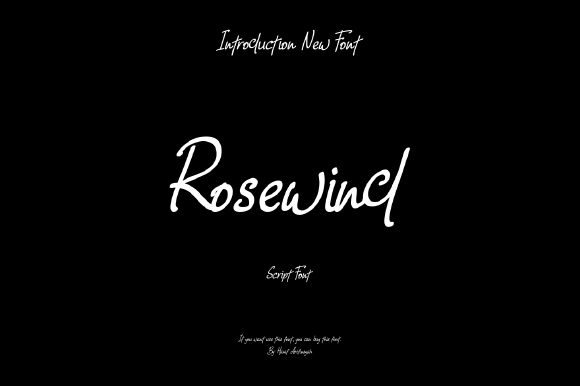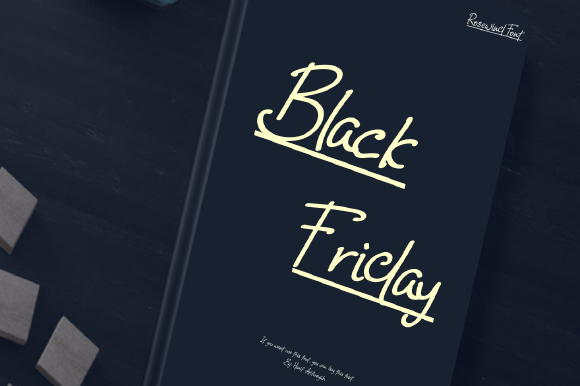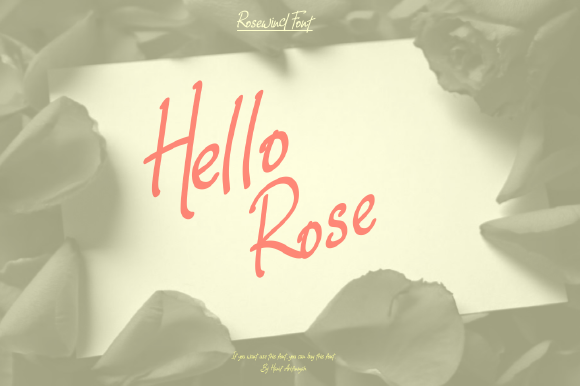
Rosewind Font
About Rosewind Font
Rosewind is an elegant, full-featured script font with tons of alternate characters and OpenType features. The name Rosewind is inspired by the rose behind the house that is often blown off. It is a hand-lettered style and is particularly well-suited to invitations, branding, and editorial design.